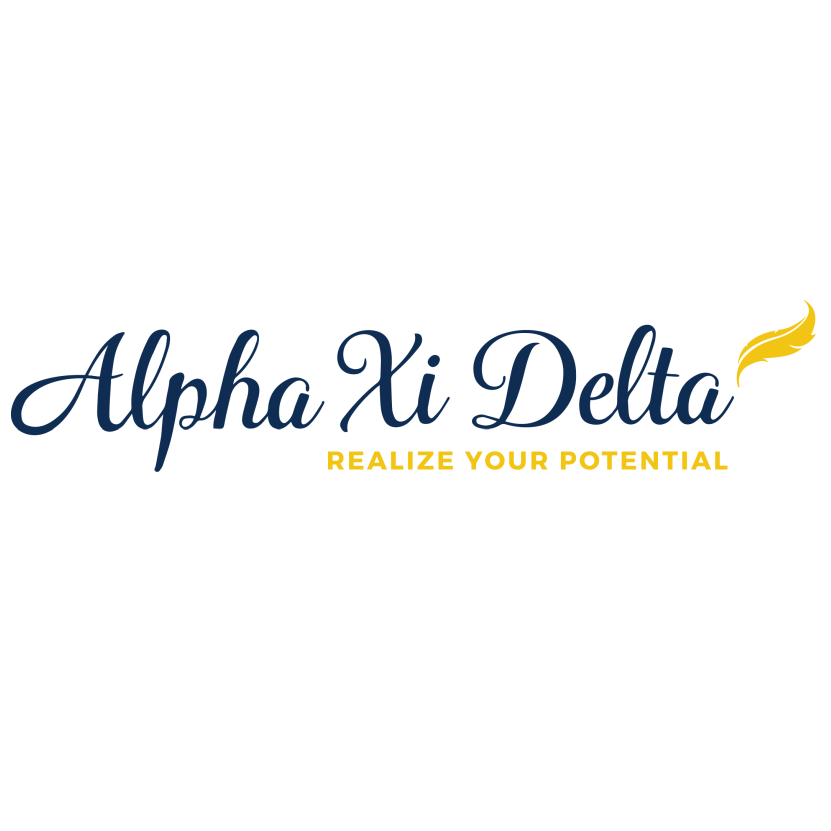
Alpha Xi Delta Font
Fonts in UseAlpha Xi Delta is a women's fraternity founded in 1893, focusing on promoting leadership, personal growth, and sisterhood among its members.
On their website, the script logo is based on Charles Gibbons' typeface Ciao Bella, with a customized letter "A." Meanwhile, the tagline is in the sans-serif font "Montserrat Bold" by Julieta Ulanovsky, which can be downloaded from the Fonts Used Section at no cost.